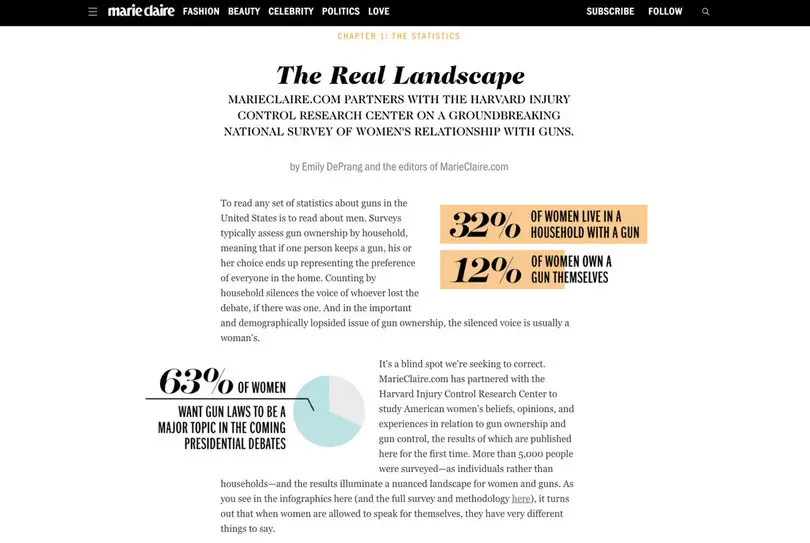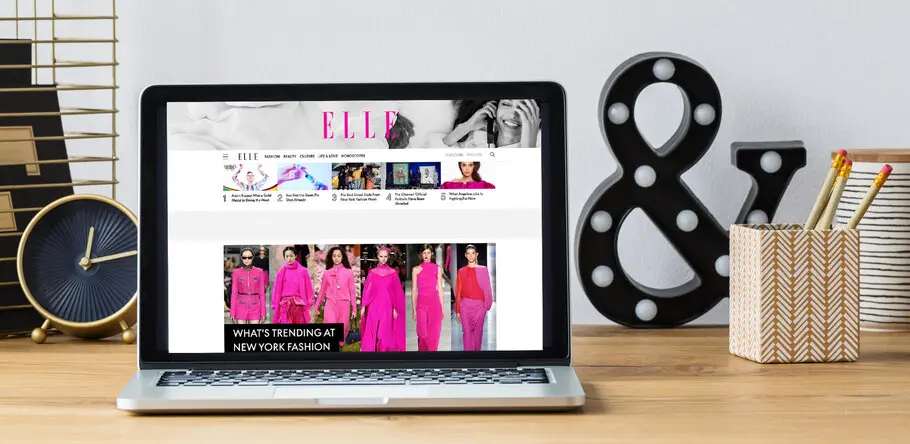
The role of fonts in modern publishing.
「 On screen or off-screen, the proper font is more necessary than ever to communicate a message effectively. 」
Open up any book. Peruse a magazine article. Whether you’re reading printed or digital material, the content is the focus. You probably haven’t realized how the typography works in a deliberate way to communicate the information clearly and legibly. After all, it is the content at the core, not the design. However, fonts play an indispensable role in shaping your experience of published media.
Making Covers Count
You may have noticed a resurgence in the popularity of typographic-driven covers, and maybe even the use of a particular font, on fiction and non-fiction books. We all know not to judge a book by its cover, but is this a fair statement? Covers are designed to communicate a book’s key attributes, the title and author, and tease what’s to come inside. Designers can convey these points most efficiently when using only type, excluding elements like photography, illustrations, and graphics.
“Strictly typographic solutions are beautiful and smart. When the cover is type alone, the focus is squarely on the title and author,” says Monotype Type Director Charles Nix. “Nothing is competing for attention, and the title can be larger when it’s not sharing real estate. Good typography can amplify meaning—it can hint at something deeper or unexpected. It can arrest the reader and focus attention simply by being different.”
In practical terms, Nix says type and lettering-centric designs are less expensive and faster to produce because they don’t involve the costs and considerations of using additional artwork. The pressure publishers put on art directors to create more with less is far from new, yet has inspired creative and interesting designs that have successfully appealed to readers.
What’s Inside
Once you’ve decided to open a book or download an eBook, you encounter the text. Book designers are deeply concerned with legibility, and gravitate toward fonts that promote comprehension in extended reading. When searching for type in which to set a book, Nix outlines five requirements designers must consider:
1. Is it readable?
The type must be highly legible and conducive to being understood. Readers must be able to consume the piece efficiently. However, it must also be enjoyable and allow one to read without thinking about the type at all.
2. Will the text fit in the given space and still be large enough to be readable?
Publishers of printed books expect the content to fit into a certain number of pages. The chosen typeface must be able to work within that economy. In digital-format books, the reader can change the type size, but the need for economy is still present. As digital pages are an abstract notion, it’s difficult to conceptualize finishing “1,200 pages” when you cannot physically see or touch them. An economical typeface for digital books can provide psychological comfort by reducing that abstract page quantity. Digital type economy also yields more characters per line on small screens. More characters per line mean more words per line. And more words per line lead to a better flow of meaning and comprehension.
3. Will the font cover the character requirements?
The font must have the accented characters and/or other special glyphs required by the book. If other attributes are required, like true small-caps, old-style figures, or other specialized features, those characters must also be in the font’s library.
4. Does it have a large enough family to fit the manuscript mandate?
If the text requires a variety of bold weights or a good looking and contrasting italic, the selected font must have a family that covers these needs. Designers must consider if it has optical sizing for working with very small or very large type, particularly on device screens. For information-rich applications, (e.g. tables, infographics, diagrams), it would be useful for a primary font to have a companion sans serif family.
5. Does it feel right?
This takes a lot of study and a good bit of instinct, but a good book designer will have a feeling for type and an ability to pair textual and typographic essences. Designers should not only care about how the font looks, but what it says and how it delivers the content. Proper leading, kerning, and word spacing are essential, but the font must also pay mind to the author’s intention.
When it comes to eBooks, Nix implores designers to consider an additional component. “Does the font license cover use in eBooks? Because eBooks are software, copies of the fonts used are bundled with the files that make up the digital package. Distributing copies of someone else’s software inside of your software usually requires a license extension, which may mean additional fees.”
The Move to Magazines
Though the nature of periodical publishing versus book publishing differs, the same typographic guidelines apply. Typesetters must consider legibility, size, breadth of characters and font families, overall feel, and licensing. However, copy in a magazine or newspaper tends toward shorter words than a piece of expansive prose. Printed periodicals also typically feature short-line-length and multi-column settings rather than the large single column text block characteristic of books. Type must acknowledge and work with the idiosyncrasies of the format to create the best reading experience.
Publishing Moving Forward
Regardless, maximum legibility combined with aesthetic appeal remains the goal to create the best possible reading experience. On screen or off-screen, the proper font is more necessary than ever to communicate a message effectively. As the ways people consume information and publishers push out content evolve, the need for sound typography will never change.